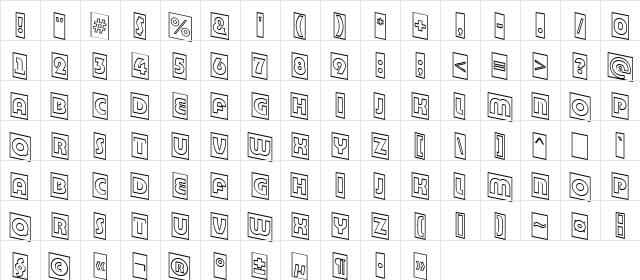
a_BighausTitulCmDnOtl Regular
Design Context for a_BighausTitulCmDnOtl Typeface
a_BighausTitulCmDnOtl offers clean, dependable letterforms without strong stylistic allegiance, making it a practical choice for designers who need flexibility.